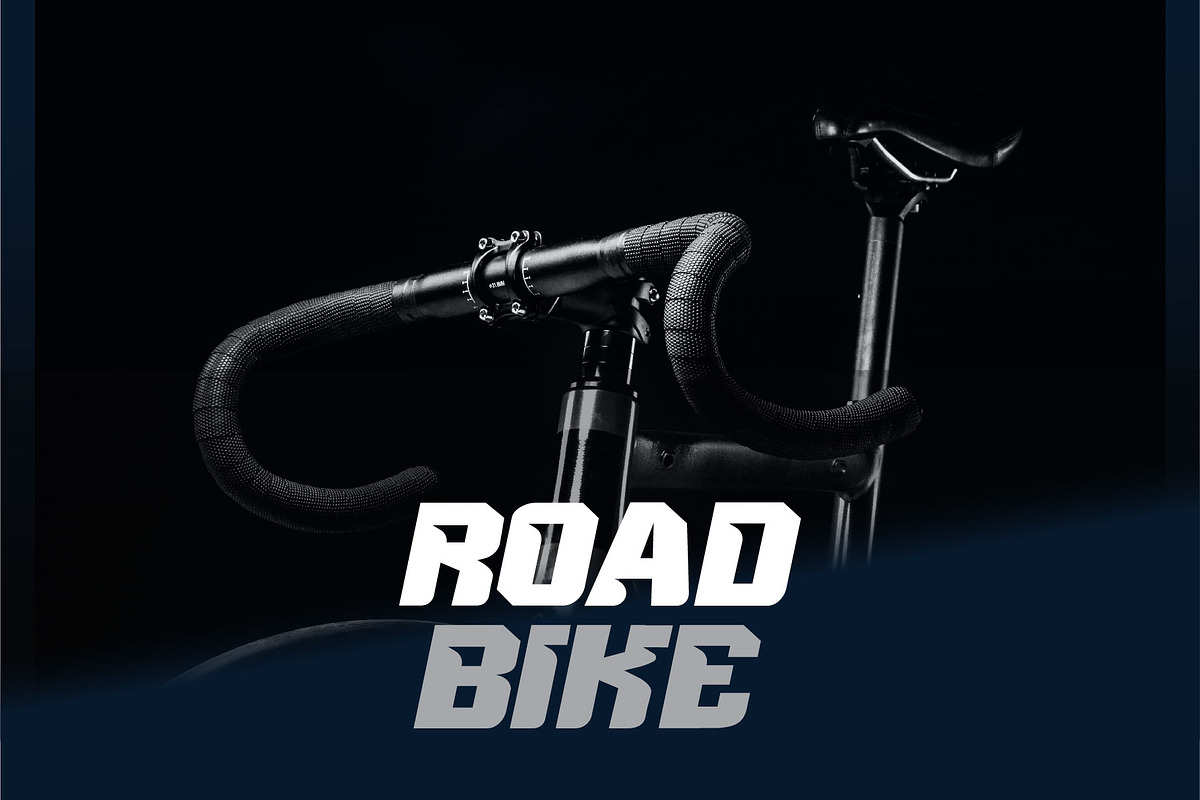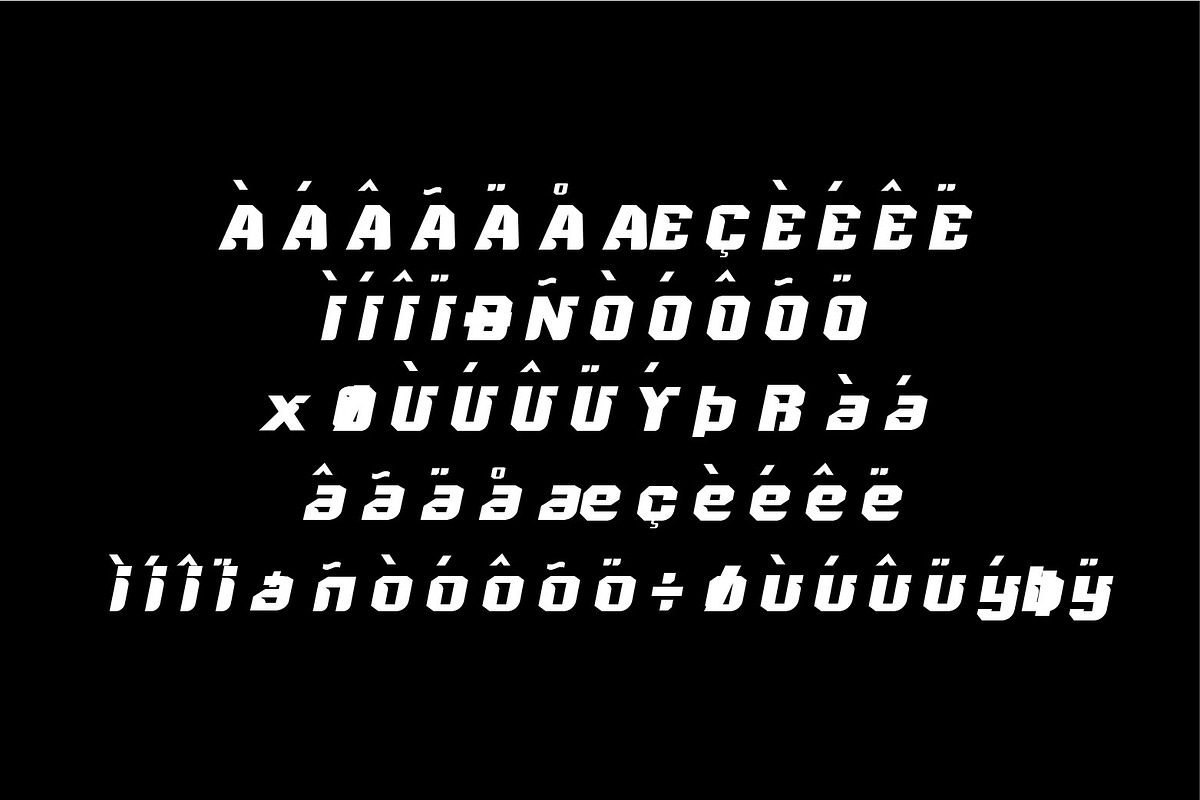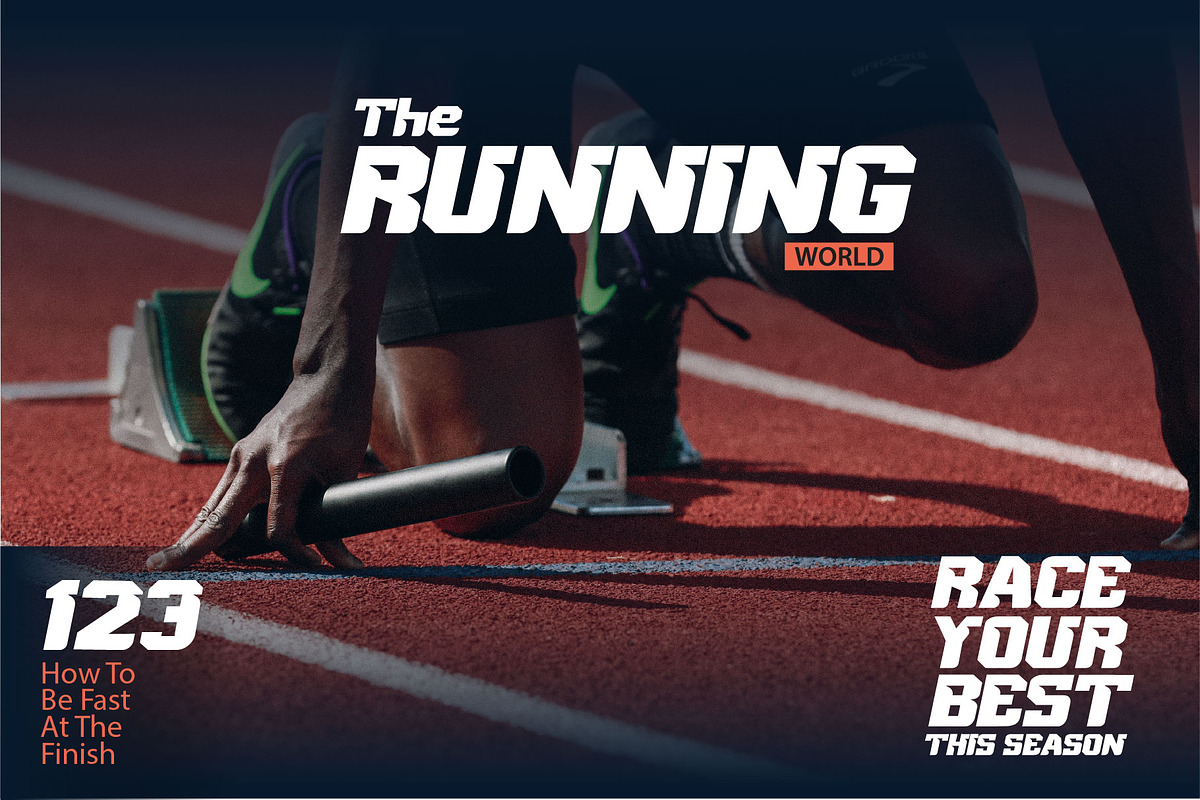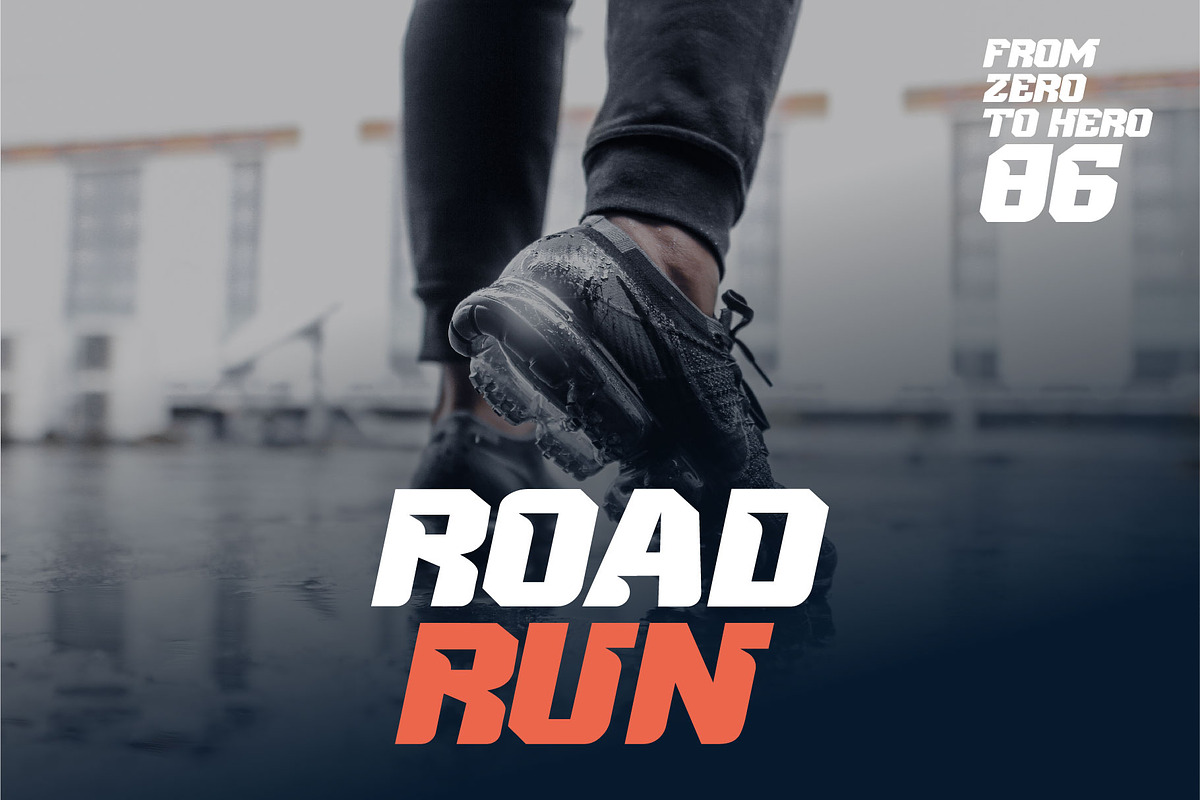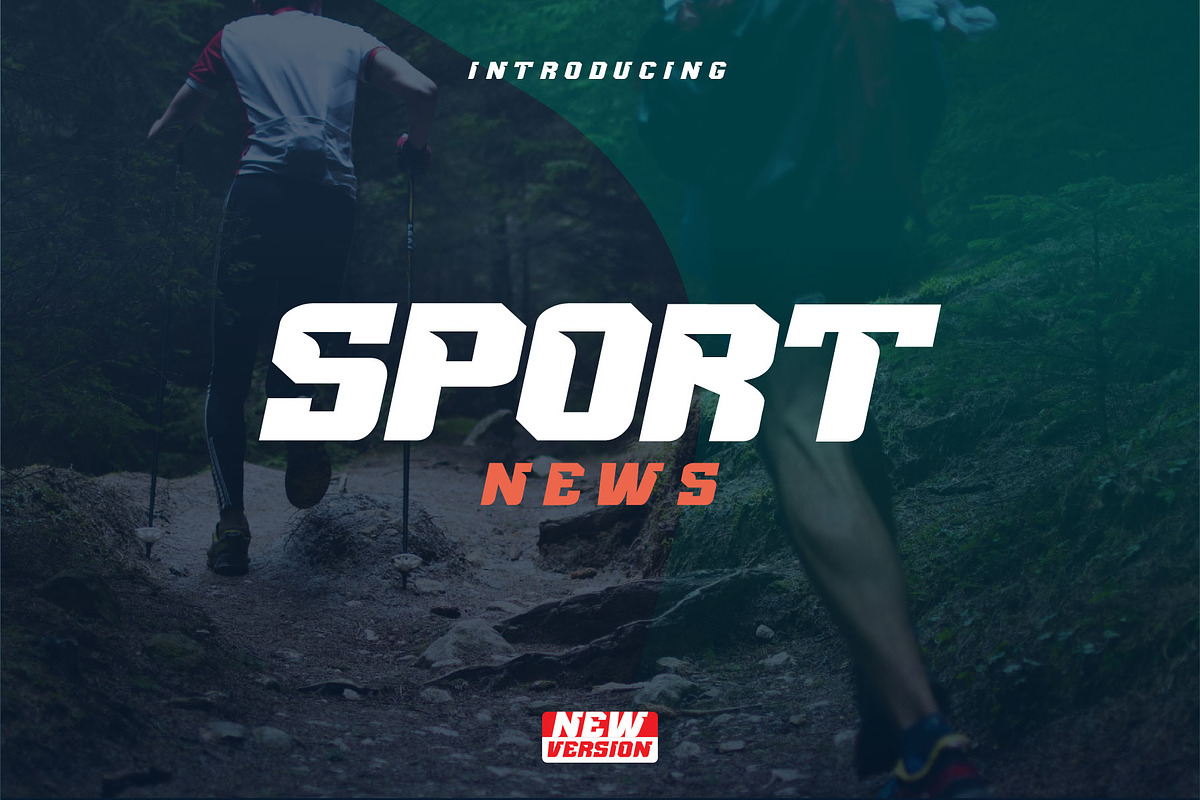
SPORT NEWS
SPORT NEWS headline magazine, logo racing
Awesome sport font with italic wide letters, modern letter cutout and dynamic slant. Ideal for sports headline of Megazine, car race, logo and monogram of automotive game or other modern dynamic text Font “Sport News” compares favorably with its readability and massiveness, creates the effect of power and speed. but with a slightly different font design.